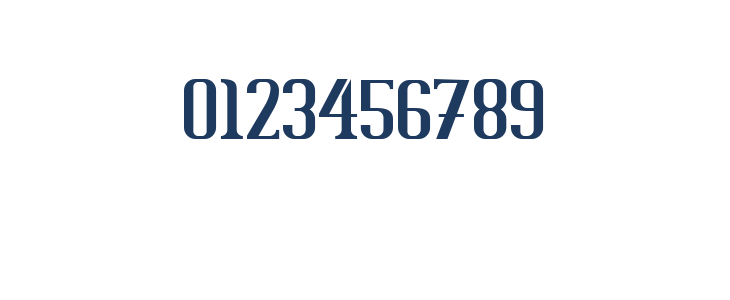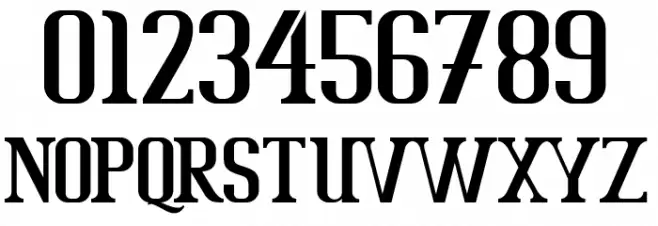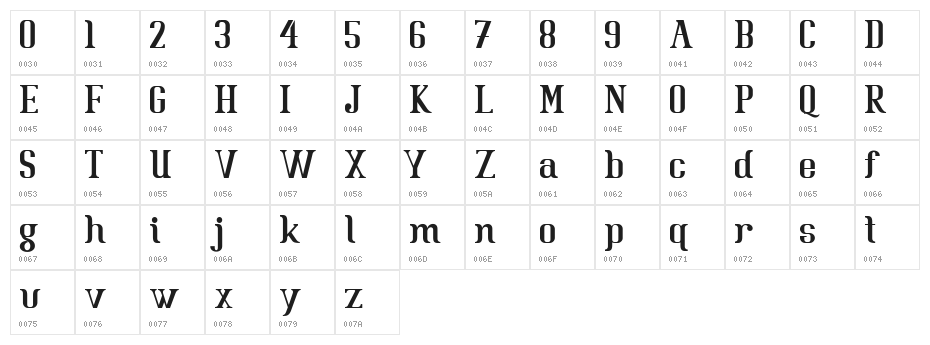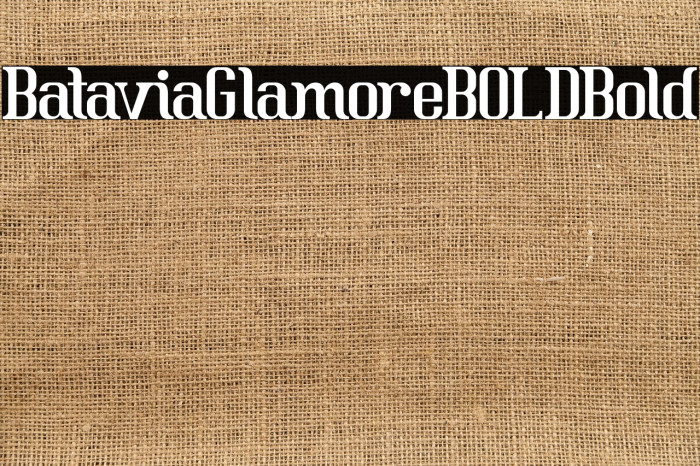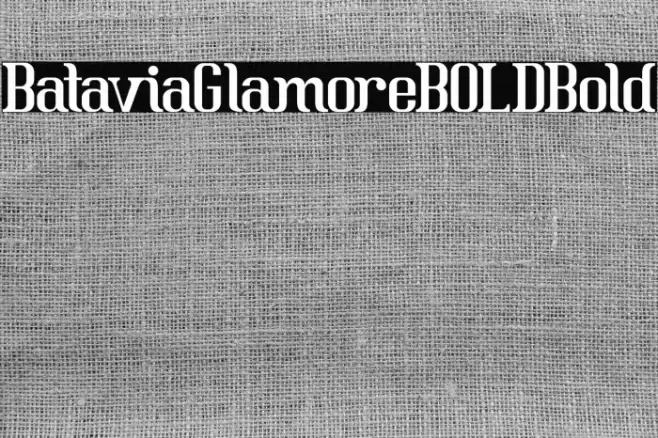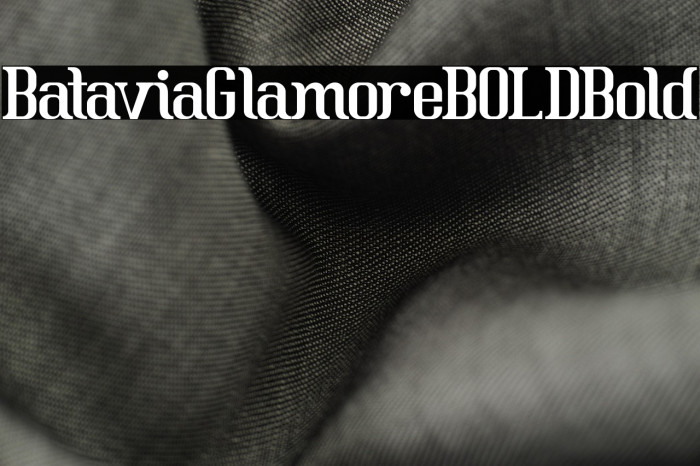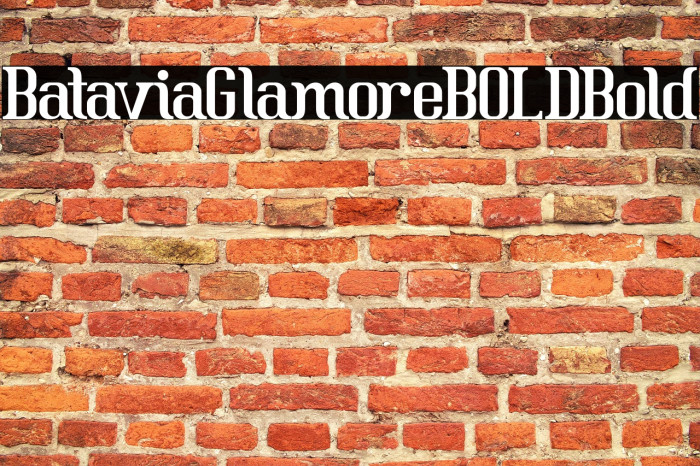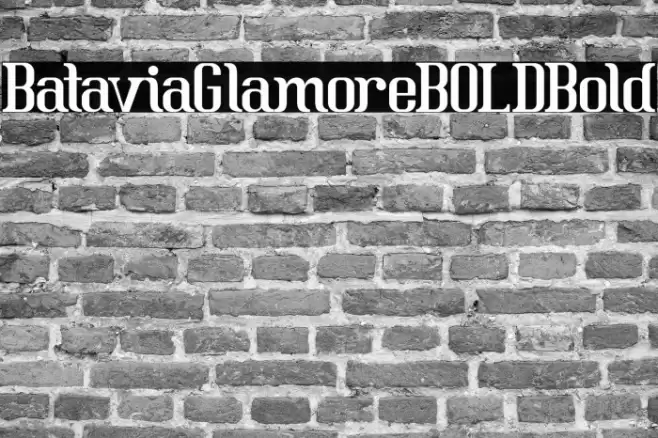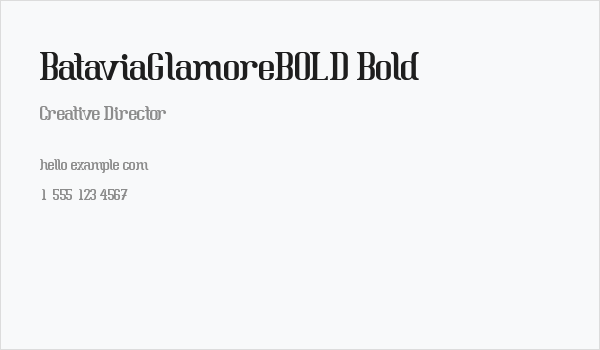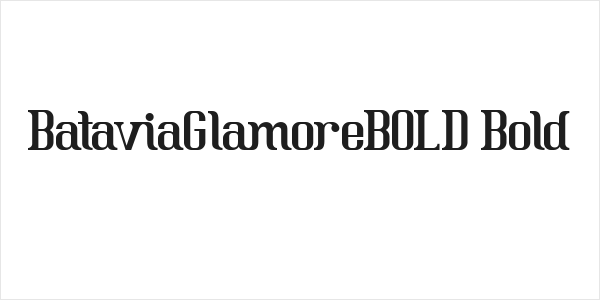
BataviaGlamoreBOLD-Bold Font
BataviaGlamoreBOLD-Bold Description
This font features a bold, decorative style with a strong presence. The uppercase letters are tall and commanding, with unique serifs that add a touch of elegance and flair. The lowercase letters maintain a consistent style, offering a smooth transition between characters. The numerals are equally bold, ensuring readability and impact. Special characters are designed to match the overall aesthetic, making them suitable for various design needs. The font's distinct style makes it ideal for projects that require a touch of sophistication and boldness.
| Proposed Projects | Ideal for branding, headlines, posters, and any project requiring a bold, sophisticated look. |